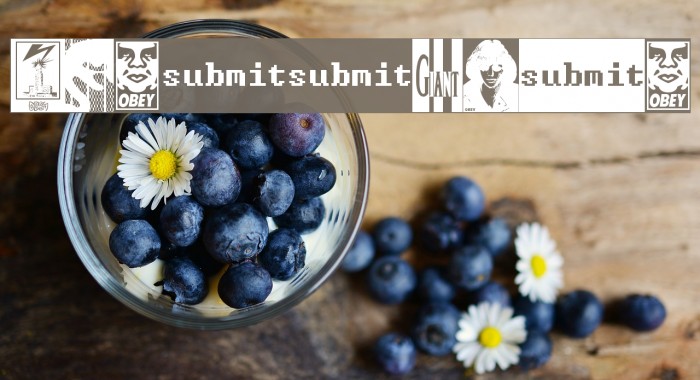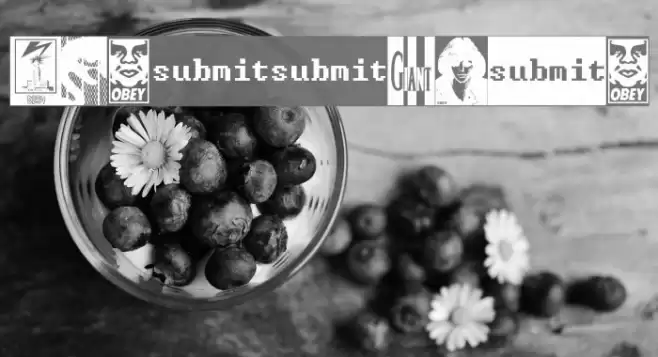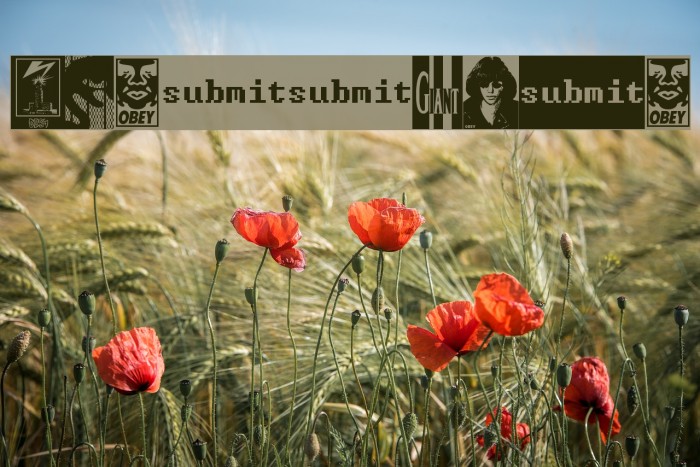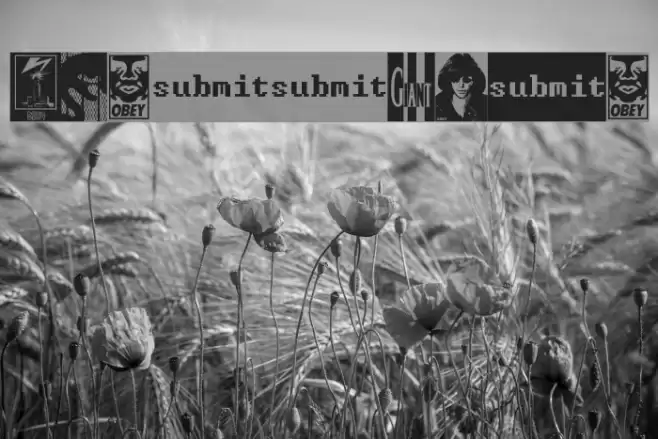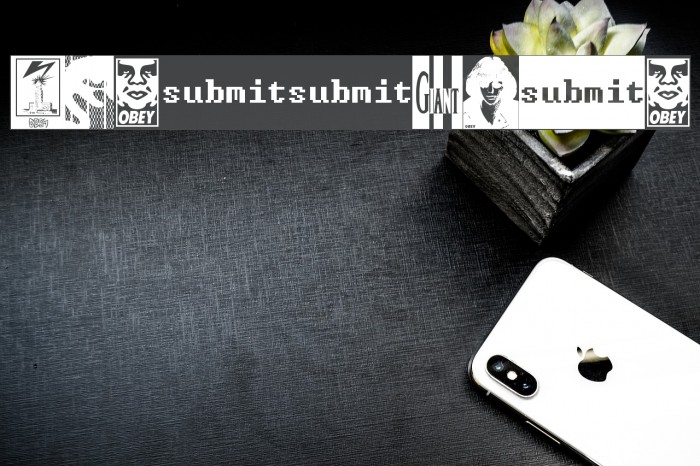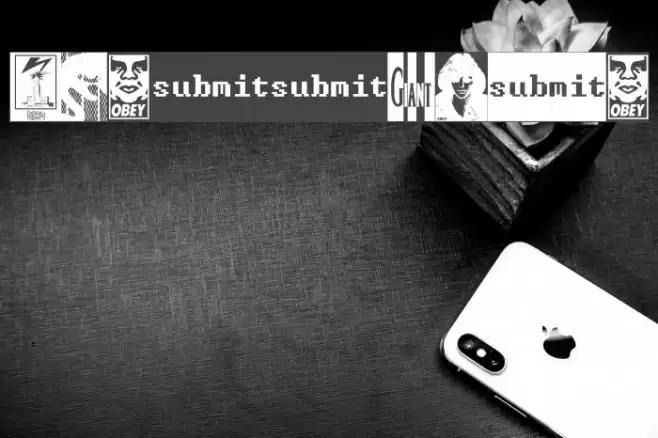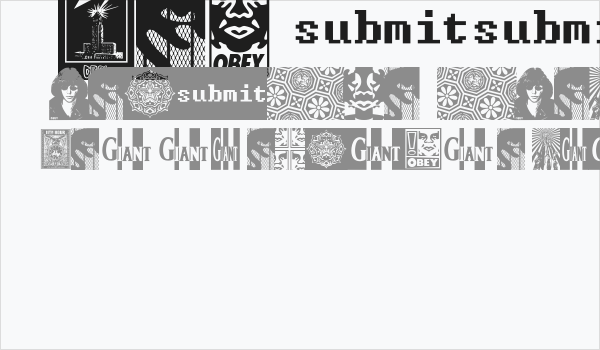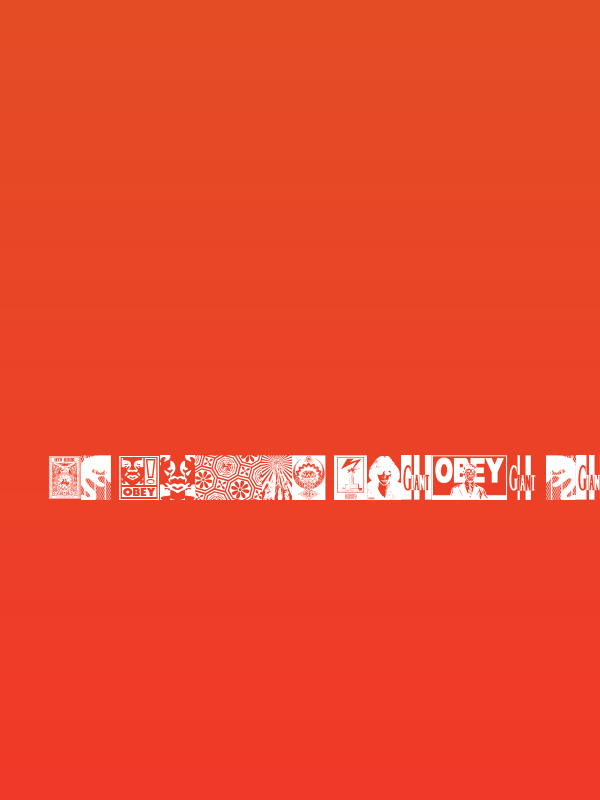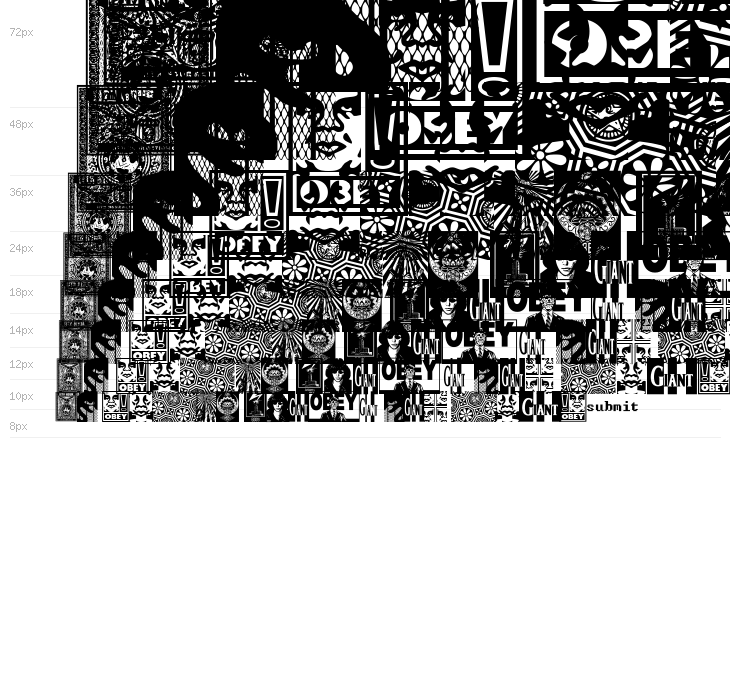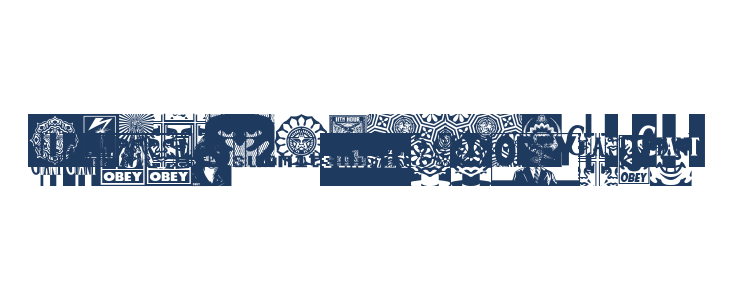
ObeyAssorty Font
ObeyAssorty Description
This font is a highly decorative and artistic collection of symbols and images rather than traditional alphanumeric characters. It features a variety of intricate designs, including faces, patterns, and iconic imagery. The style is bold and graphic, with a strong emphasis on visual impact. The characters are not uniform in size or shape, creating a dynamic and eclectic appearance. This font is more of an art piece, with each character offering a unique visual element that stands out individually.
| Use Case | Logos, Posters, Artistic Designs |
| Proposed Projects | Ideal for artistic projects, posters, album covers, or any design work that requires a strong visual statement. |